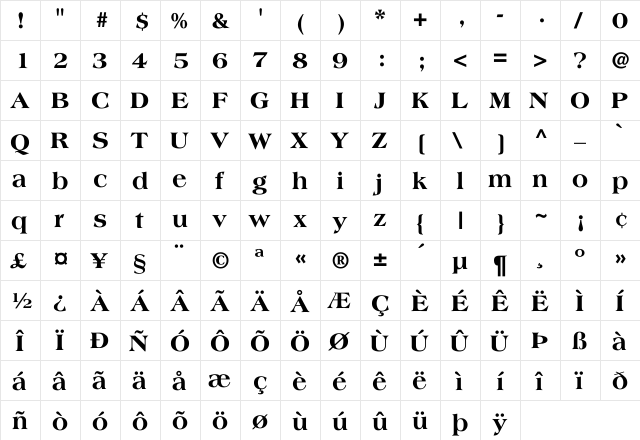
Americana-ExtraBold Regular
Design Context for Americana-ExtraBold Typeface
Americana-ExtraBold offers clean, dependable letterforms without strong stylistic allegiance, making it a practical choice for designers who need flexibility. Its bold stroke weight gives it real presence on the page.